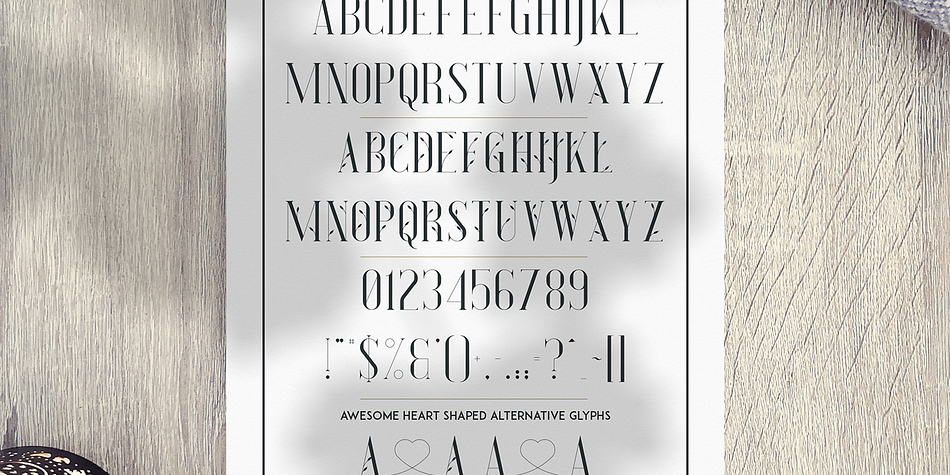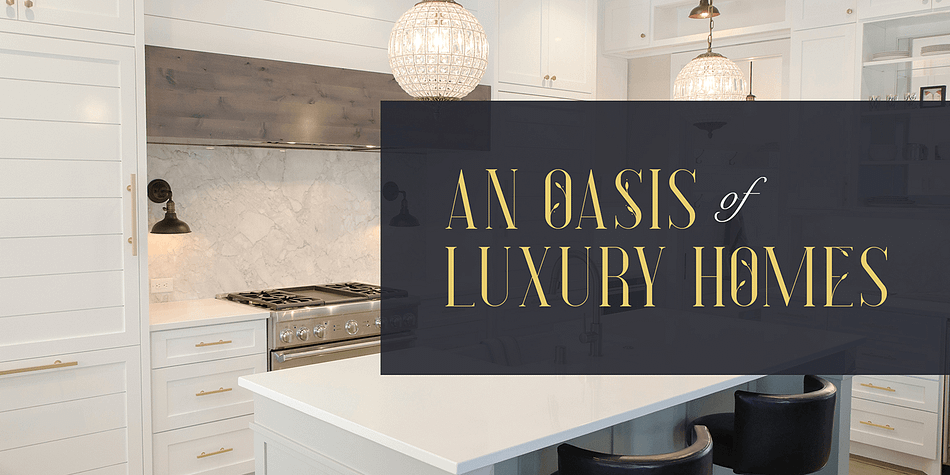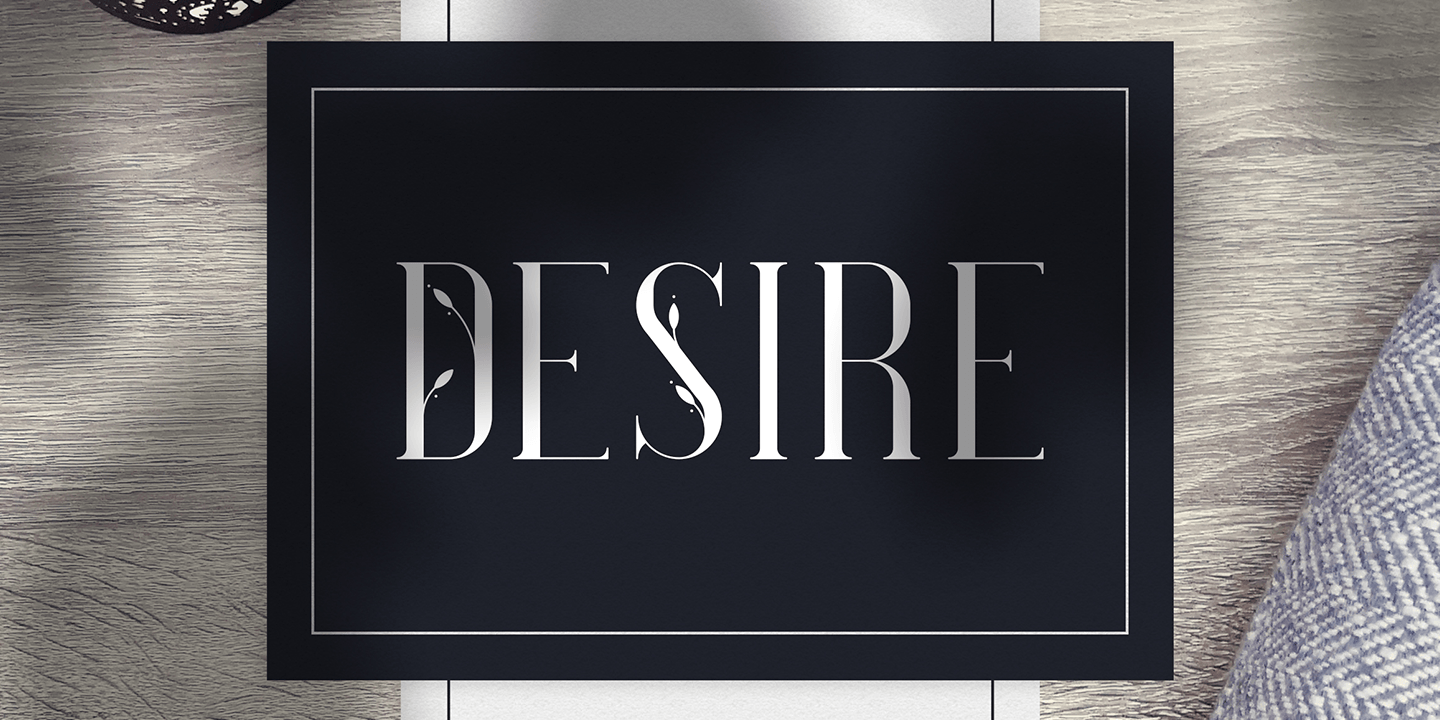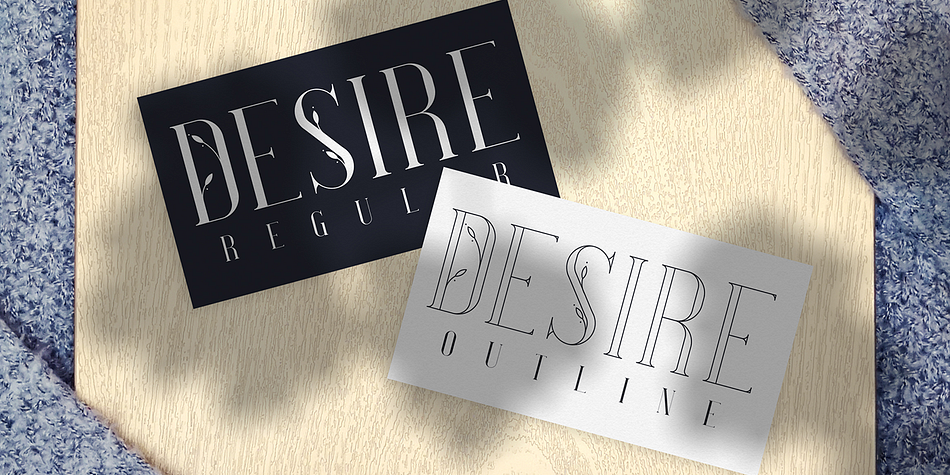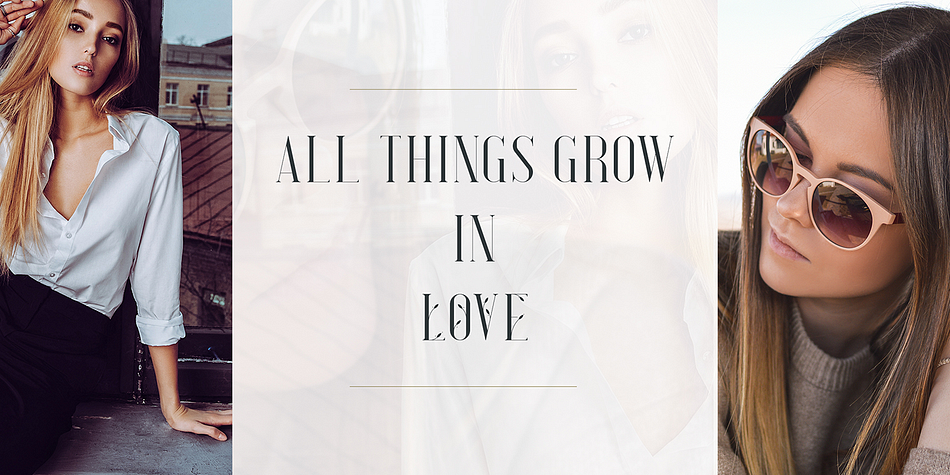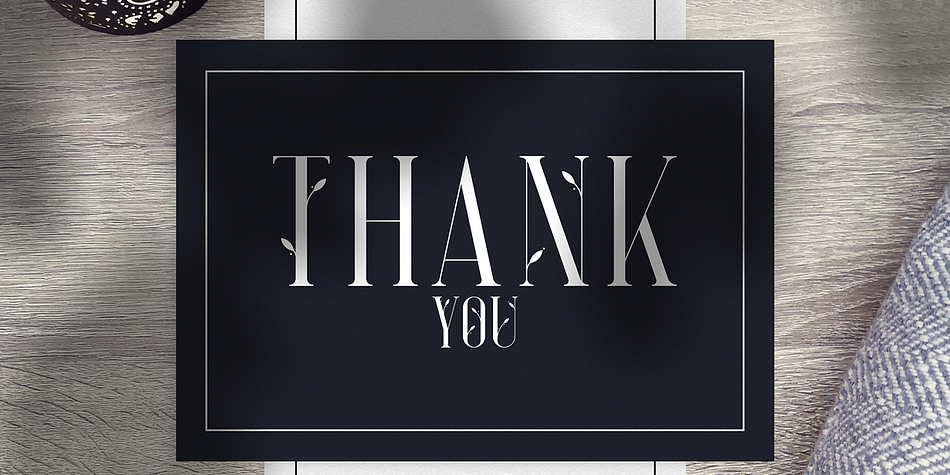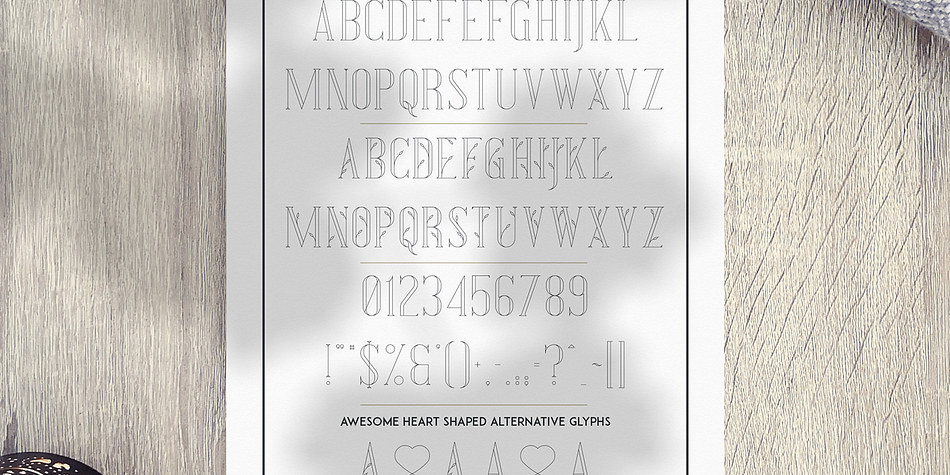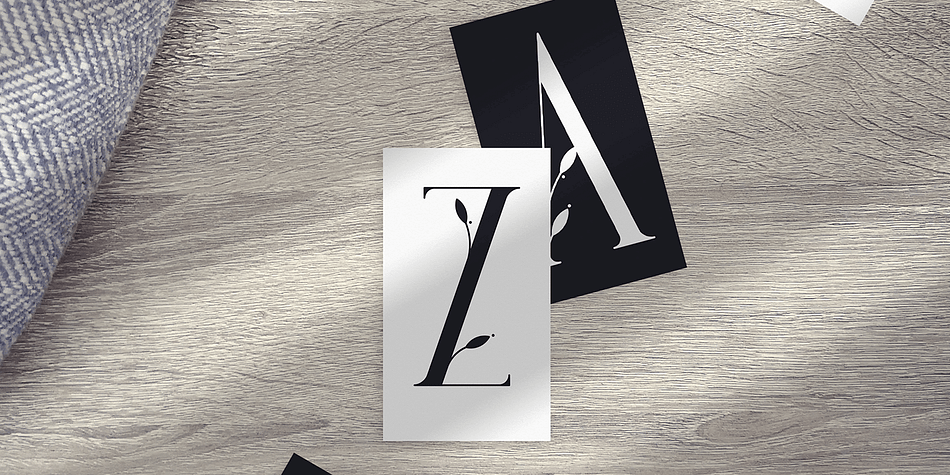
DESIRE
Desire is a display serif font family. This typeface has two styles and was published by VPcreativeshop.
Introducing Desire luxury serif font
Desire is elegant, wedding font with 2 styles, alternative glyphs and multilingual support.
It’s a very versatile font that works great in large and small sizes.
Desire is perfect for branding projects, home-ware designs, product packaging, magazine headers - or simply as a stylish text overlay to any background image.
Uppercase,lowercase, numeral,punctuation & Symbol
Regular
Outline
Multilingual support
Heart shaped alternative glyphs